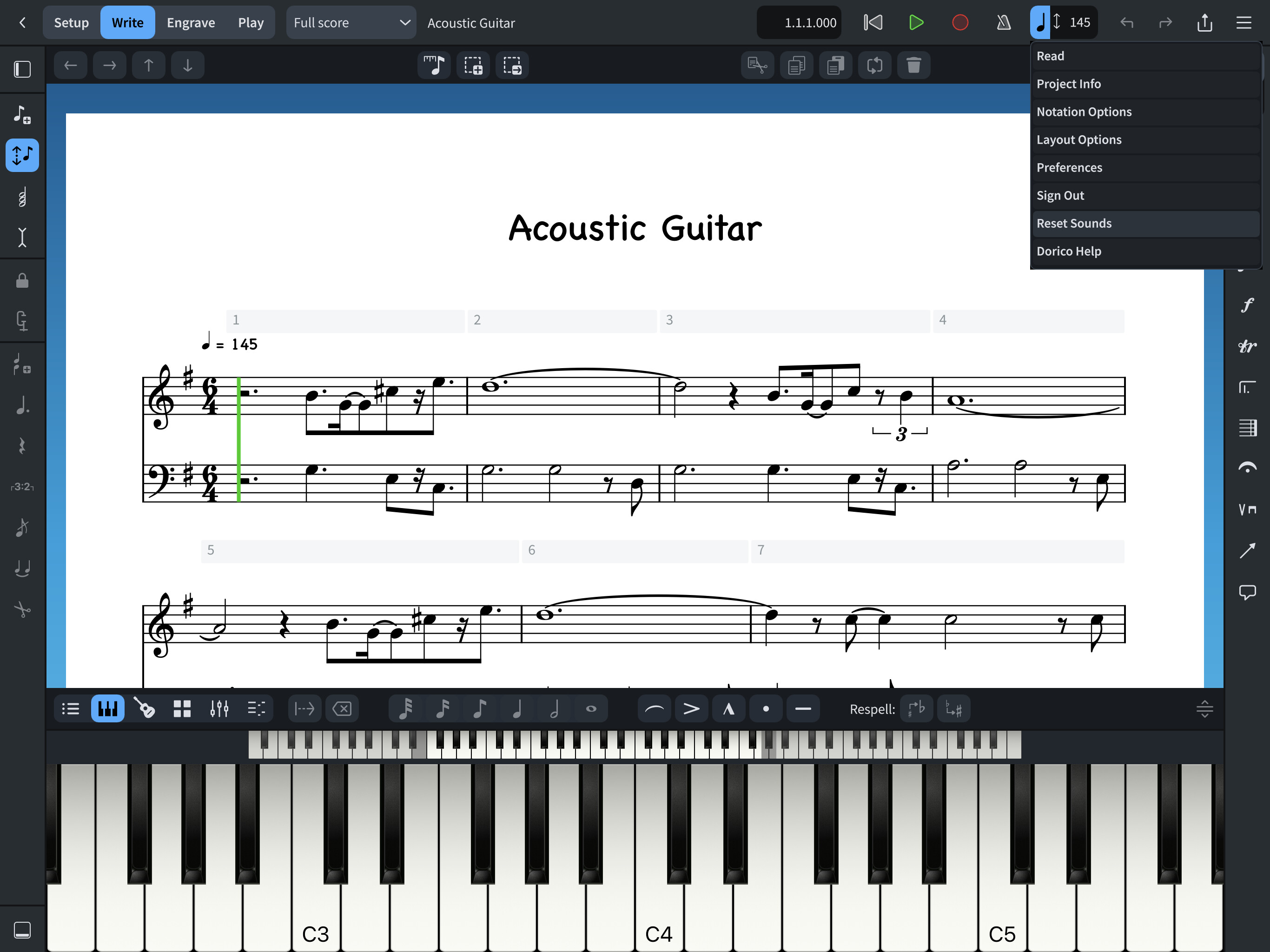
Hi, so, it appears that when a midi file is imported in, it is coverted to the Bravura (engraved) by default with no way to choose Petaluma (“handwritten”). Also, the only chance to use petaluma is when one goes to create a new document. This is a bit frustrating as, being a new convert from finale and with all of my music files use my own handwritten font, BluNotz, when I go to import the files to ipad version of Dorico, I’m stuck with engraved version of music font. In a perfect music world, I would be able to use my on font with the ipad version and be able covert imports and exisitng files to it. (adding third party music font capability might be another feature to add as well) Not sure if this would be considered a “hot” topic for developers but there you go. thanks for your consideration
If you set the music font as Petaluma via the option in the Library menu, will your XML import appear immediately in Petaluma?
Even if it doesn’t, it’s easy enough to change after the fact.
Hi Derek, thanks for your response. So, just to clarify, my post is about Dorico for IpadI have no font issues with Dorico Pro MOS and have my own font as the default and can go back and forth between various music fonts. with Ipad version, there is no functionality to change music font with importing or once you set the music font starting from scratch.
Hi Romano, thanks for your response. So, just to clarify, my post is about Dorico for IpadI have no font issues with Dorico Pro MOS and have my own font as the default and can go back and forth between various music fonts. with Ipad version, there is no functionality to change music font with importing or once you set the music font starting from scratch.
The developers are well aware of the current limitations for third-party fonts on the iPad. It’s largely a problem with the Qt framework that does the cross-platform interface for Dorico.
Have you made a SMuFL version of BlueNotz?
As far as having a SMuFL version, sorta! I was able to put together a basic functional version with most of the standard “modern” characters ( definately slanted towards a Jazz/popular look ) and it seems to fit my needs with Dorico MOS. its been a while since I have tinkered with it. Anyway, thanks for asking. Are you connected with Steinberg/Dorico development? again, sorry to flake out if we met earlier
No, we’ve not met, and I’m not Steinberg. I’ve just been round the block a bit. I used to use Nightingale, which had BlueNotz bundled. I’m also a bit of a font hoarder.
I’ve just made a SMuFL version of Golden Age, (with Don Rice’s permission); as well as a SMuFL version of an engraved font called Sebastian.
If you wanted help converting BlueNotz to SMuFL, I’d be happy to lend a hand.
Unfortunately it’s not going to be possible in the near future to use third party music fonts in Dorico for iPad, but it’s definitely something we would like to be able to allow in future, provided we get the necessary support built into the Qt framework.
Hi, again, Daniel, thanks for your quick responses to my queries. While having the ability to use third party SMufl fonts (mine included) would be ideal, i find that being able to choose or switch to Petaluma instead of Bravura would be essential when midi or XML files are imported or if I might want to change the music font on the fly in existing files. Would this functionality also be limited by the Qt framework (which, by the way, I’m not familiar with but willing to learn)
You don’t need to learn the Qt framework – that’s just a big part of our software stack and responsible for providing a lot of the cross-platform foundations that Dorico is built upon.
You should be able to change music font immediately after importing your MIDI or MusicXML file by going to the application menu at the very right-hand end of the main toolbar and choosing Music Fonts.
So, In regards to your response, I just need to double check that you are describing functionality that is part of Dorico for Ipad and not Dorico MOS. I just did a test midi import
into Dorico for Ipad and when I went to application menu, I do not find any selection option related to music fonts. Here is a screen shot of my open application menu and the options thatnare available.
By the way, I guess you have already seen that Dorico for iPad was updated a couple of days ago, and now includes the Music Fonts menu item in the application menu (on the toolbar).